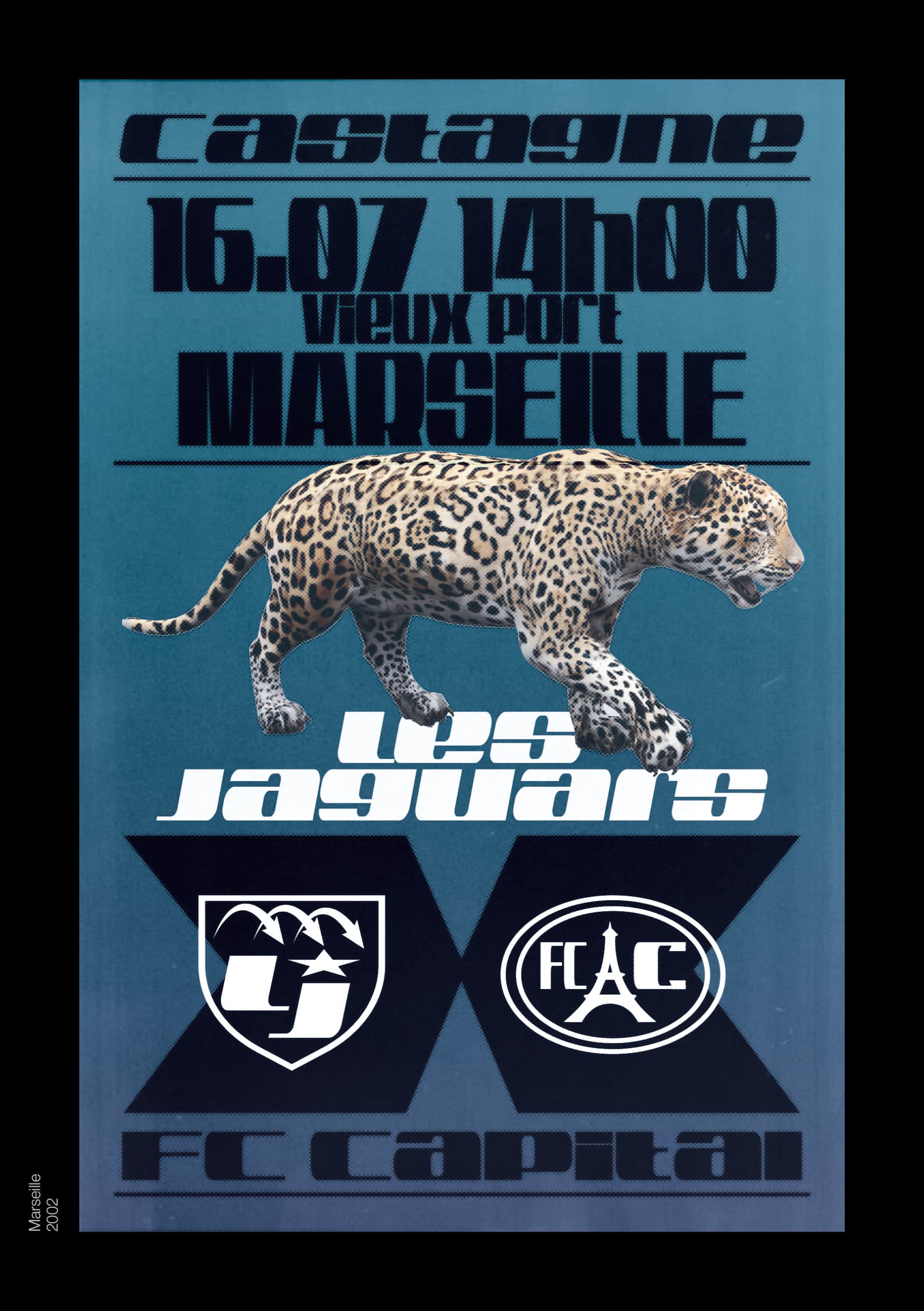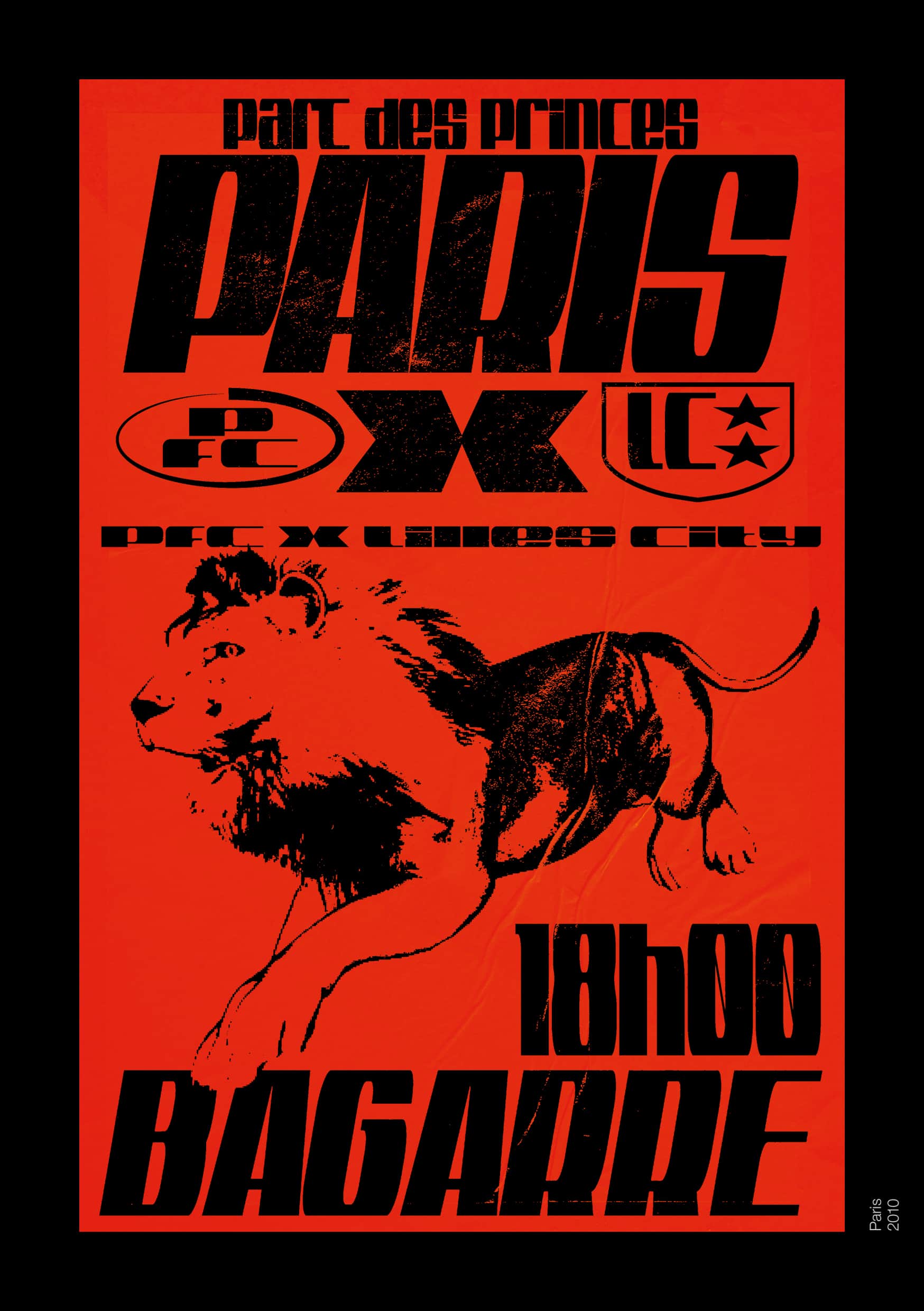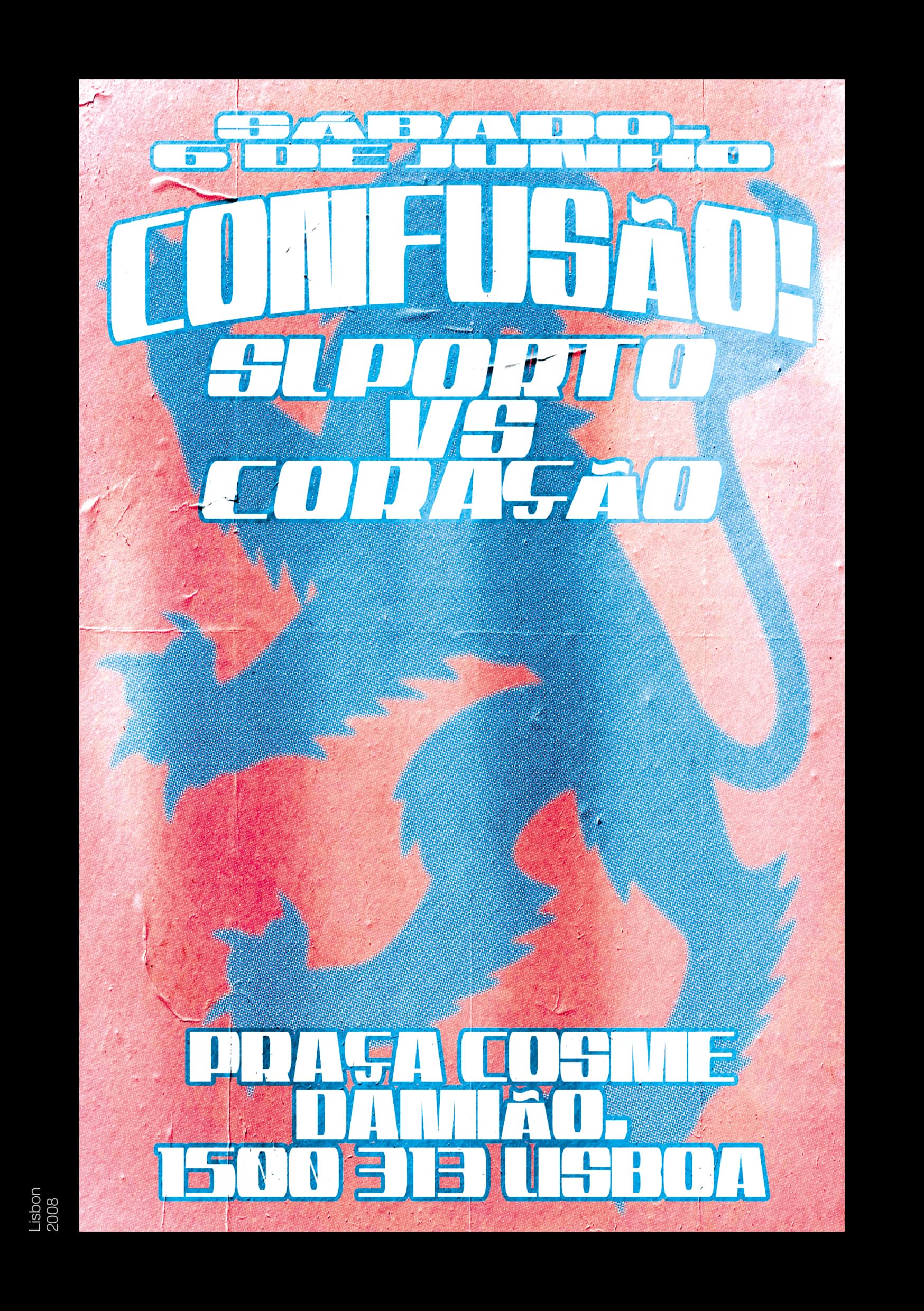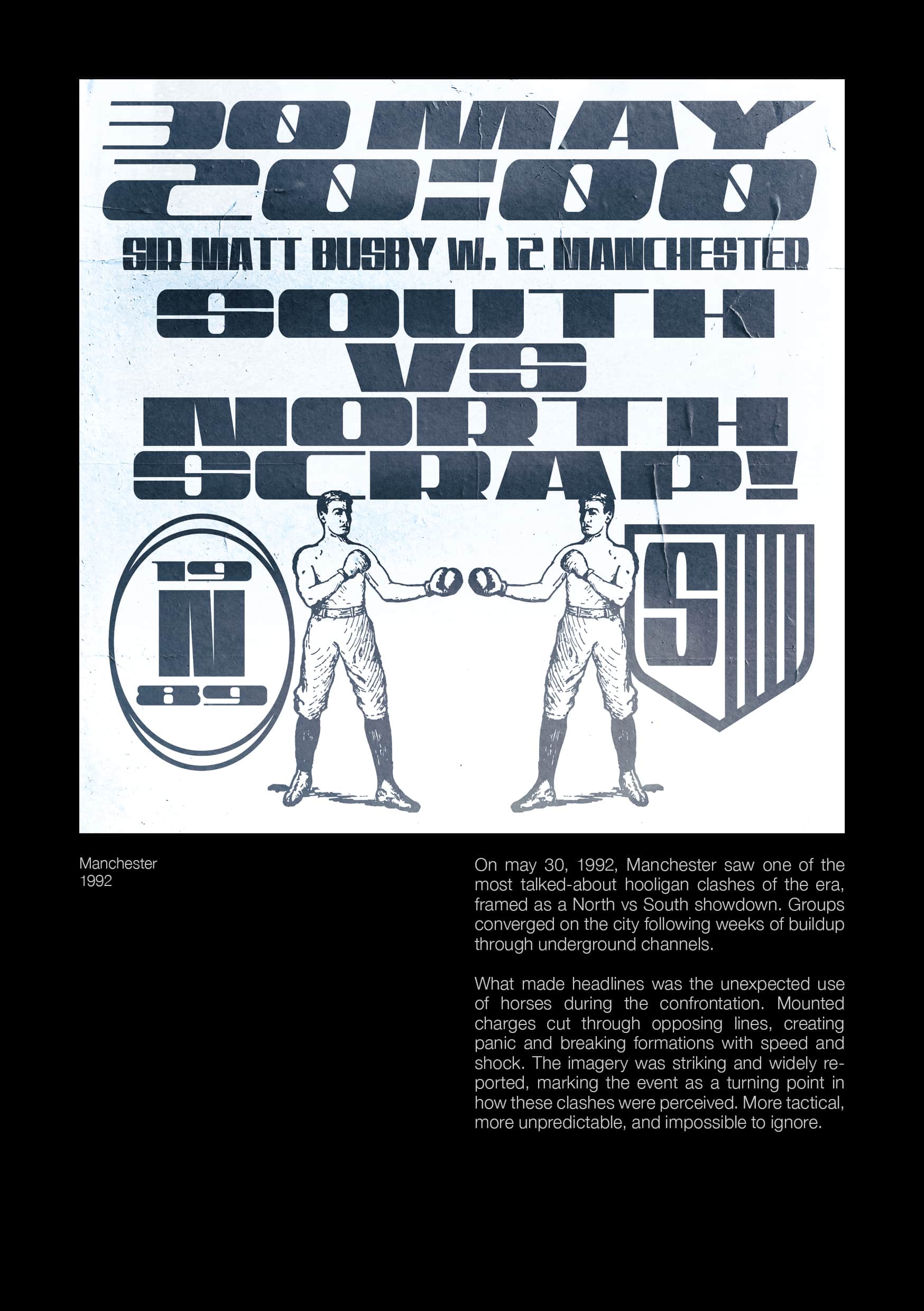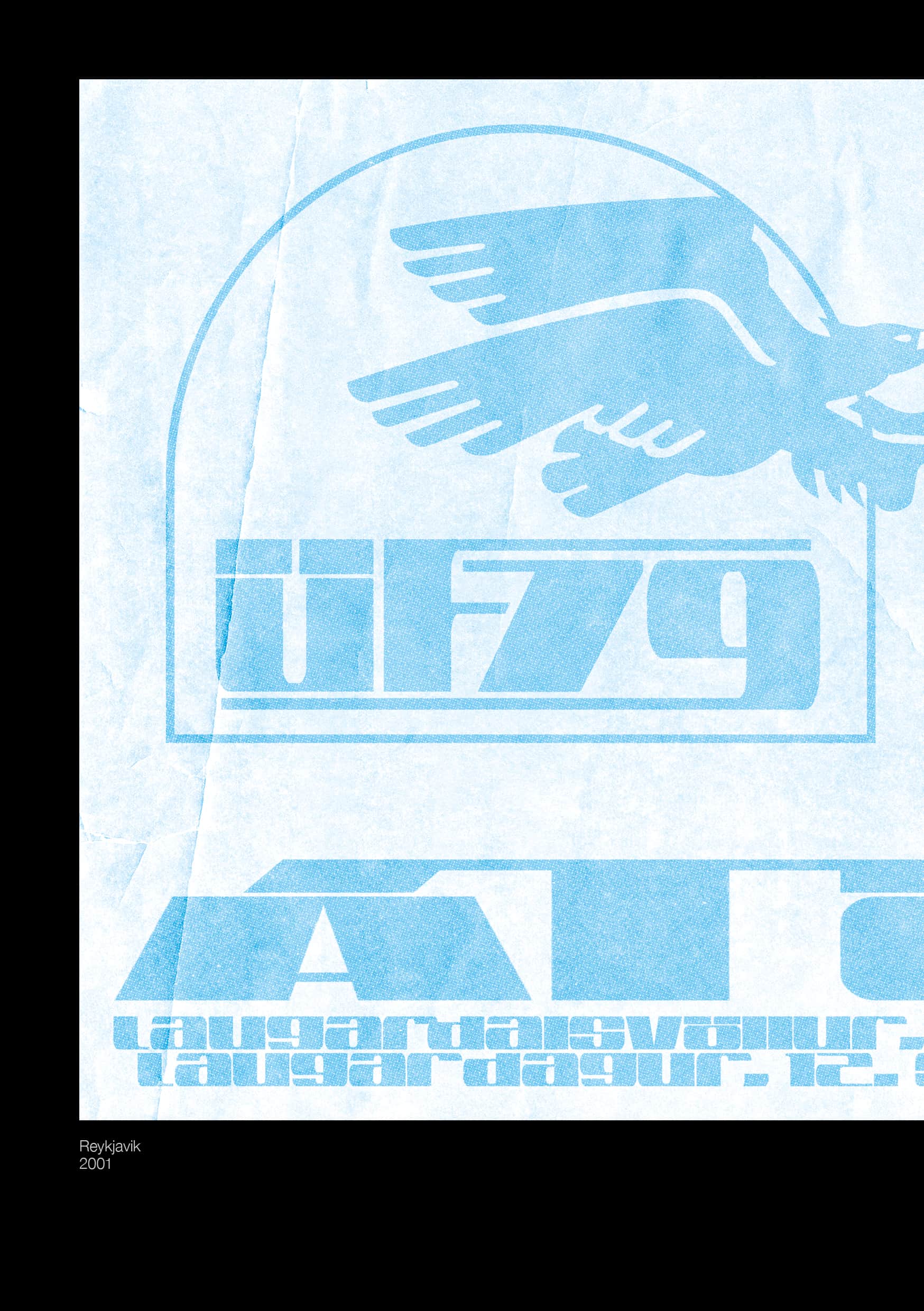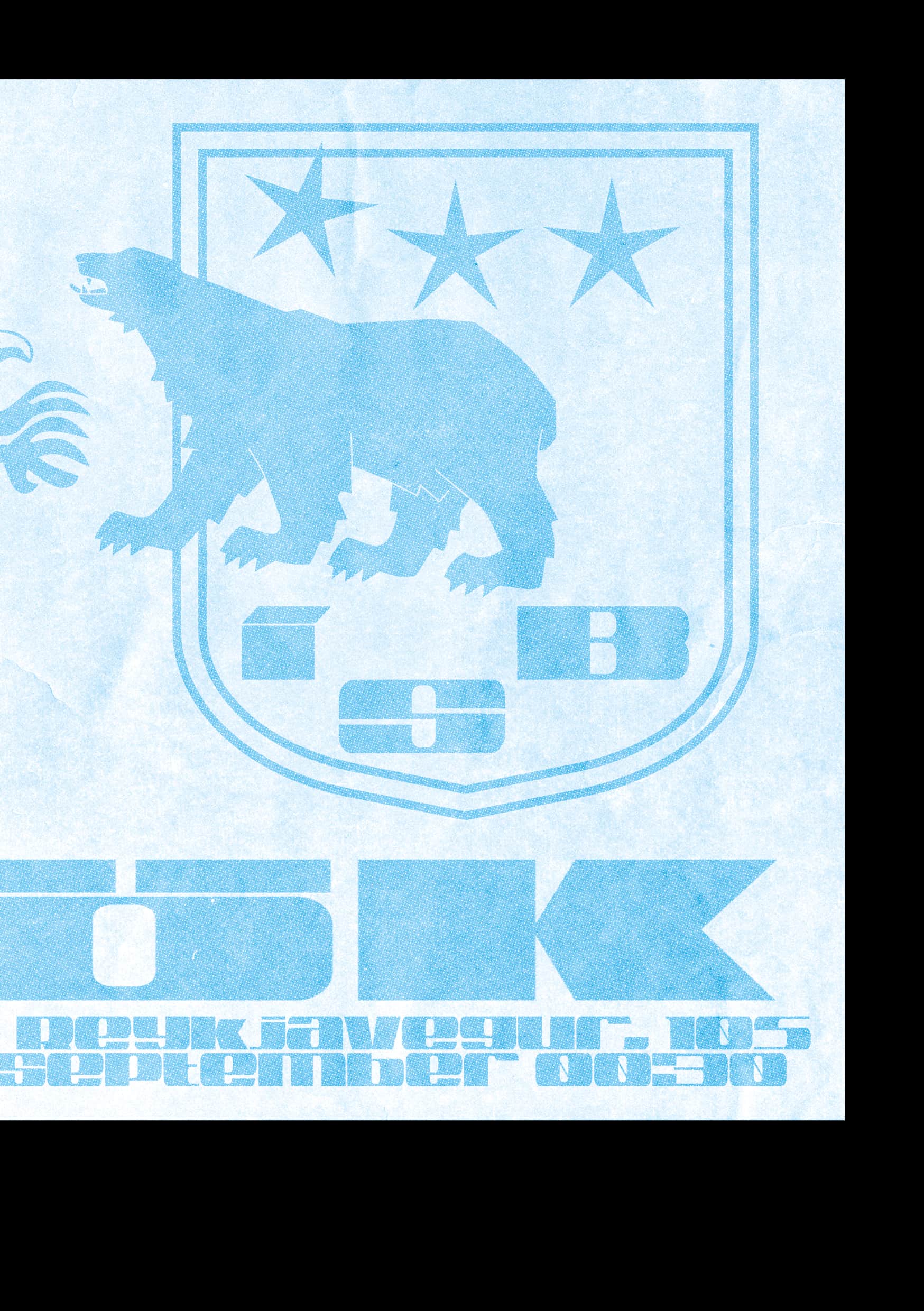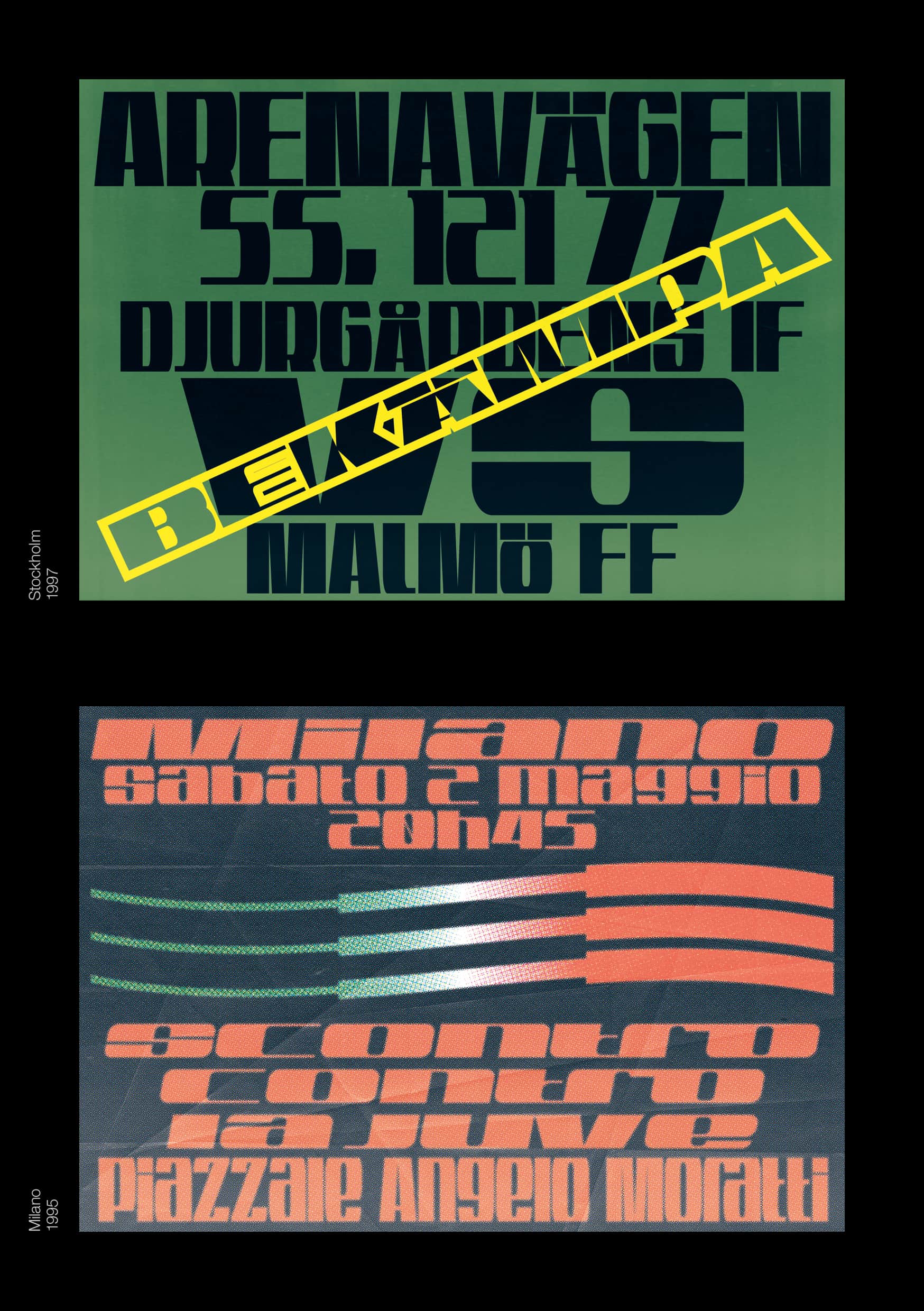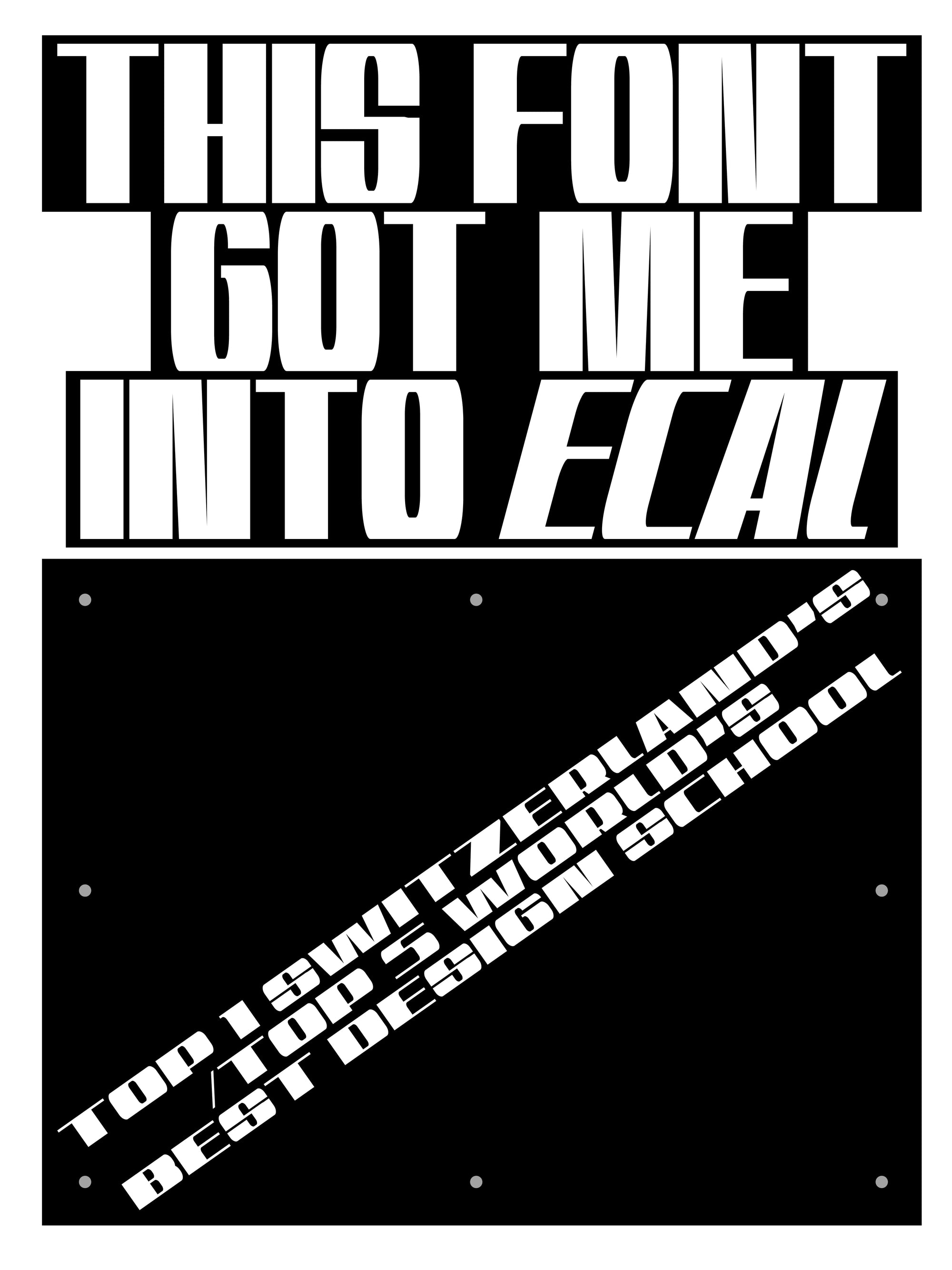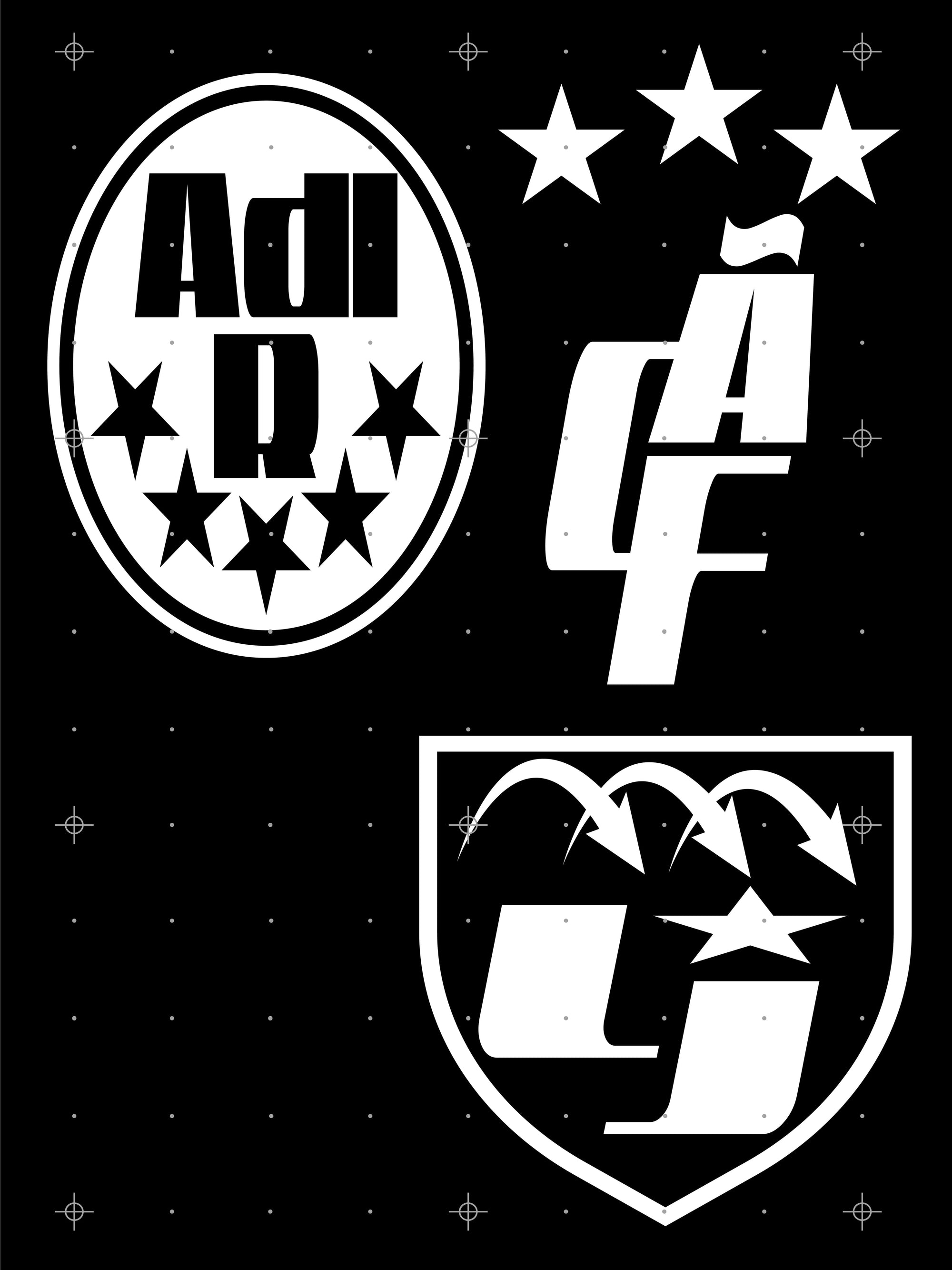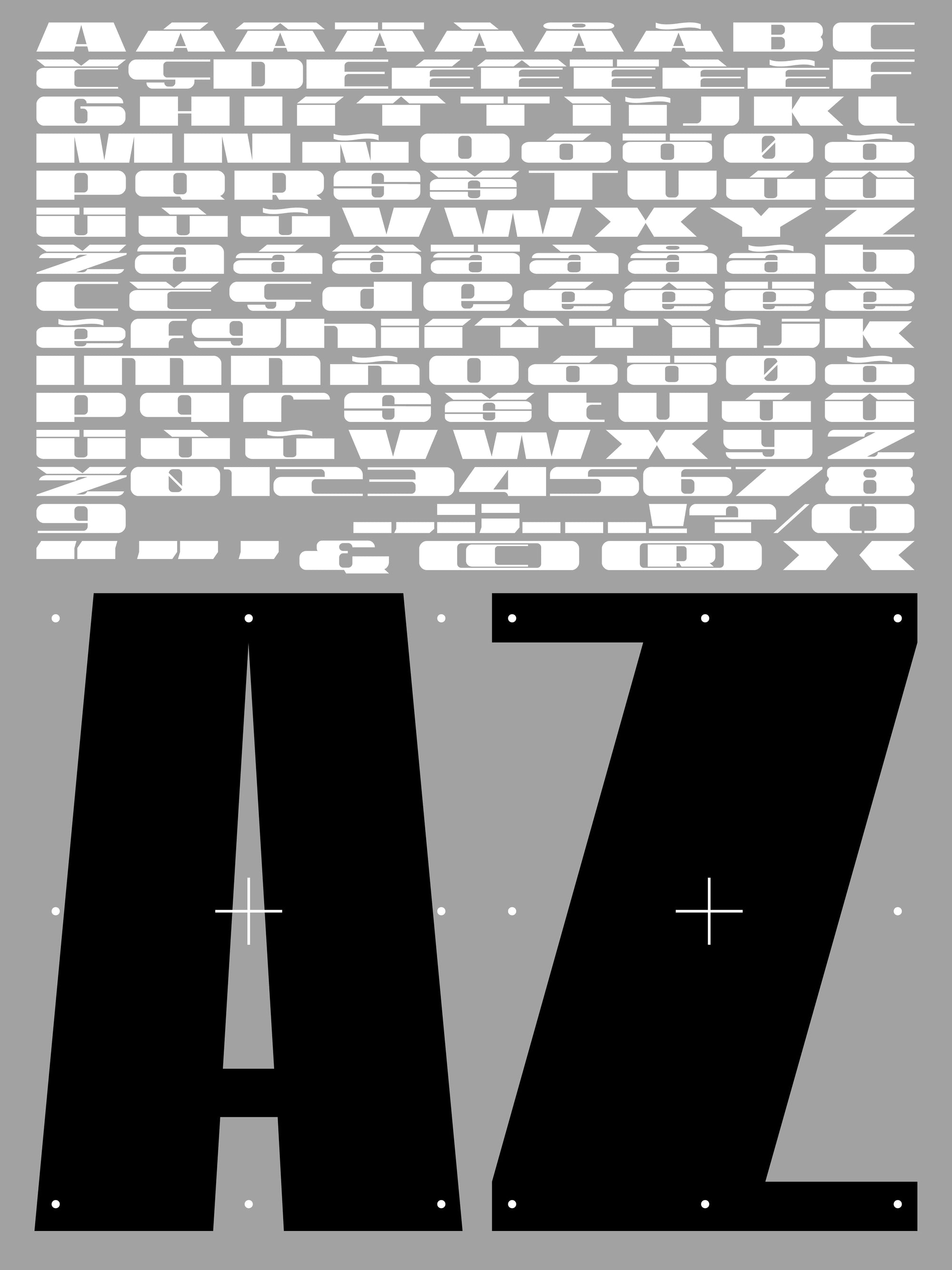
Ultra Mono Typeface
Ultra Mono is an experimental display typeface built around a bold typographic constraint: a unified vertical structure where uppercase and lowercase characters share the exact same height. By removing the traditional distinction between capitals, ascenders, and descenders, the typeface creates a dense, compressed rhythm with a strikingly contemporary presence.
Descenders fold back into the line while accents sit tightly against each letter, forming compact text blocks that feel engineered rather than traditionally composed. The result is a highly graphic surface where typography becomes both information and texture.
Designed as a variable font, Ultra Mono includes adjustable height and slant axes, allowing you to push compositions from rigid and controlled to more dynamic and expressive layouts. Its condensed structure enables extremely tight leading while maintaining strong readability and visual impact.
Ideal for editorial design, posters, branding systems, experimental layouts, and contemporary visual identities that demand intensity and character.